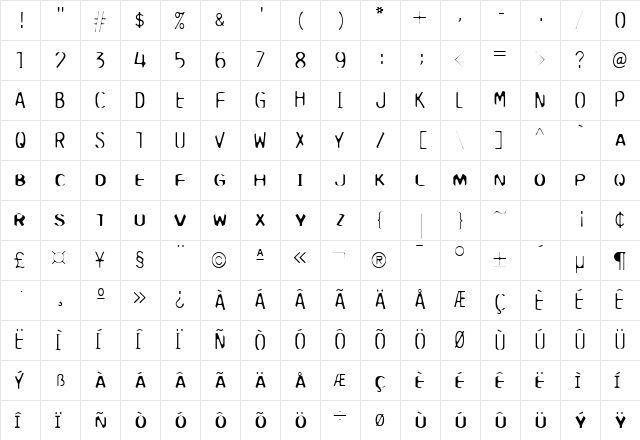
Complete Pure Regular glyph index. Displaying only characters natively supported by Pure Regular font.
Pure is a composed and adaptable typeface that performs quietly and consistently across a wide range of design contexts.